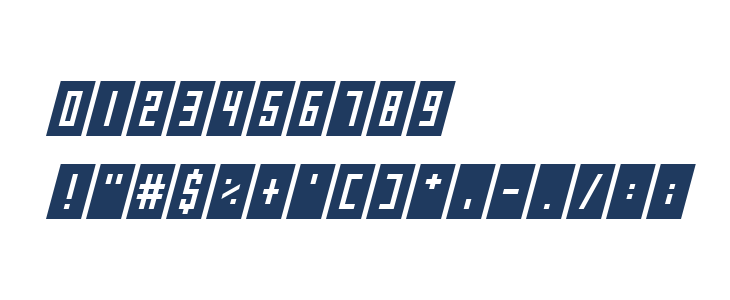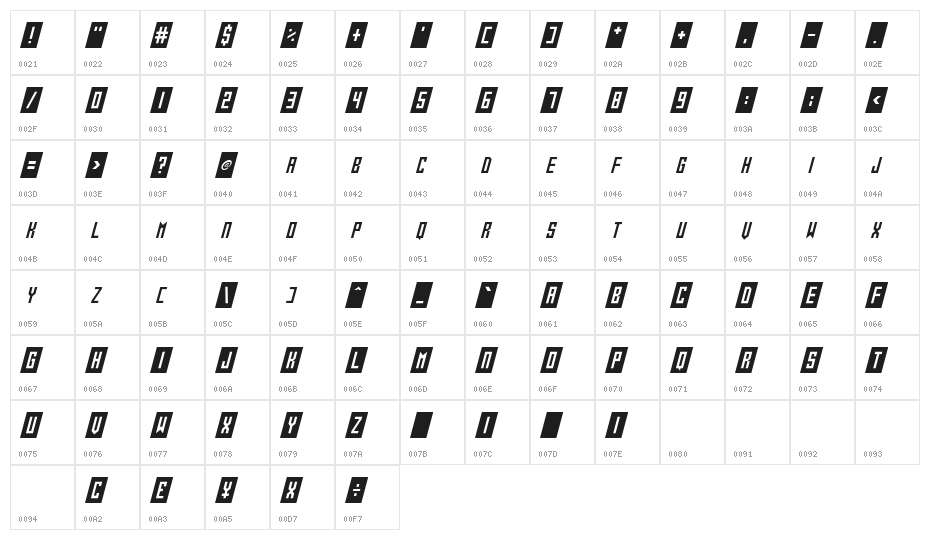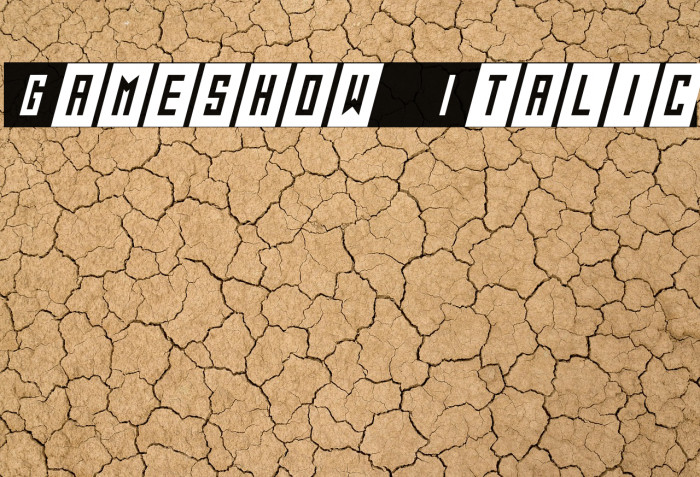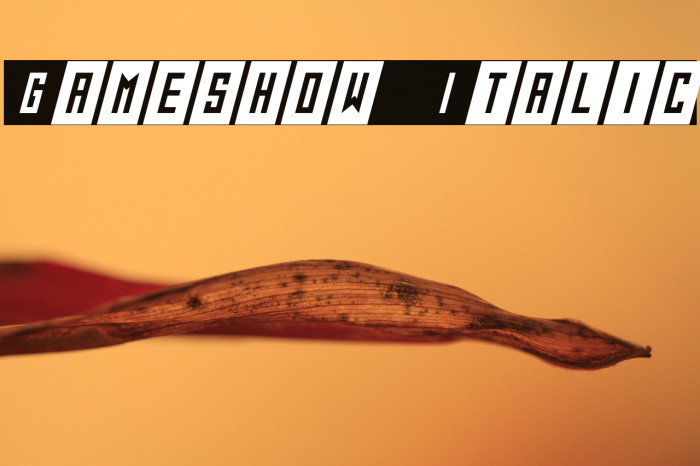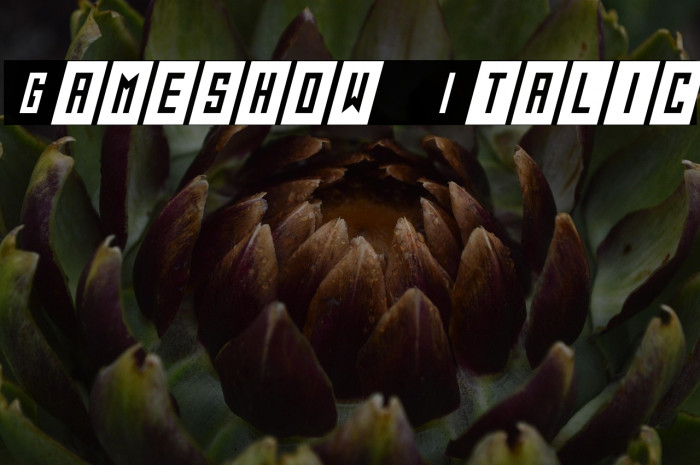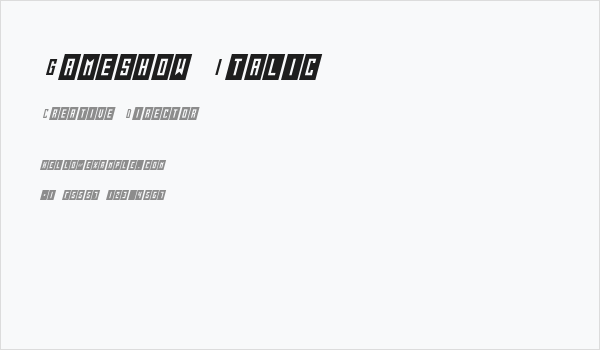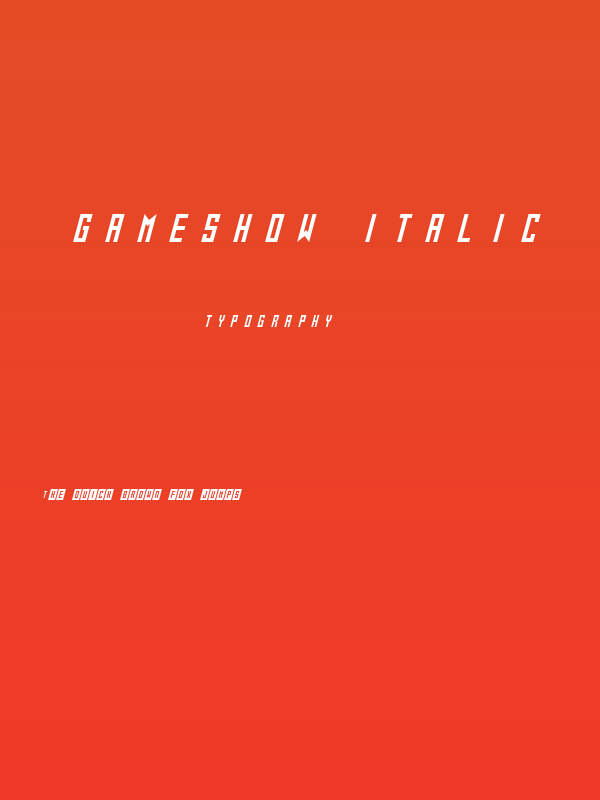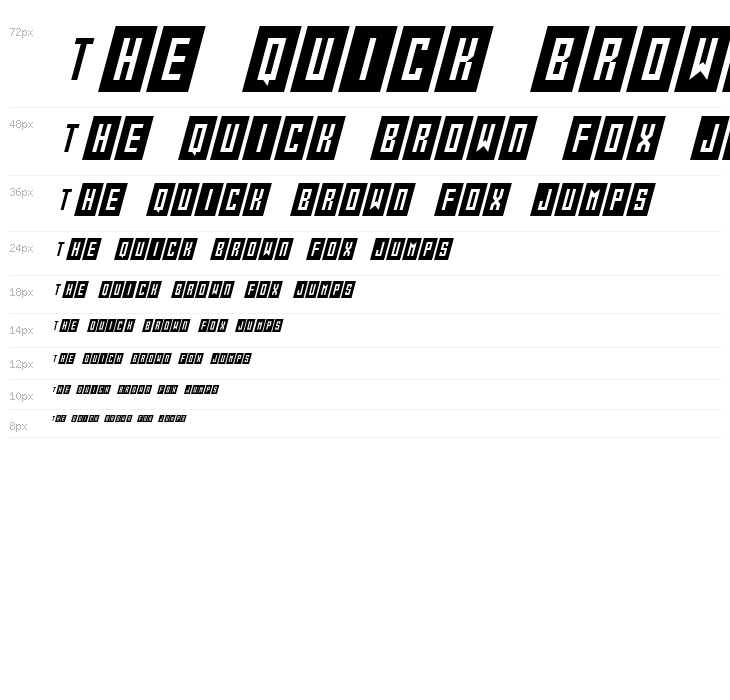
Gameshow Italic Font
Gameshow Italic Description
This font features a bold and dynamic style with a distinct italic slant, giving it a sense of motion and energy. The uppercase and lowercase letters are designed with sharp angles and clean lines, creating a modern and edgy appearance. The numbers and special characters maintain this bold aesthetic, ensuring consistency across all glyphs. The font's strong geometric shapes and high contrast make it highly legible and visually striking, ideal for capturing attention.